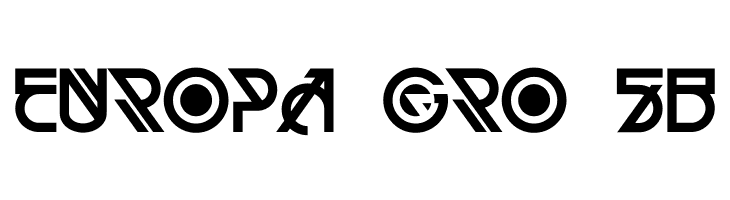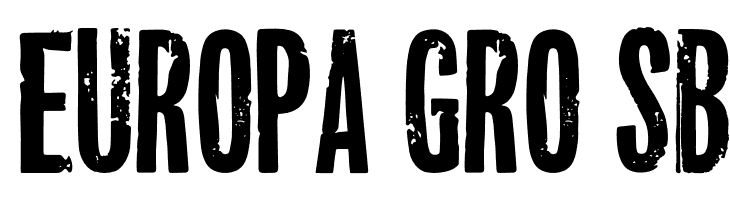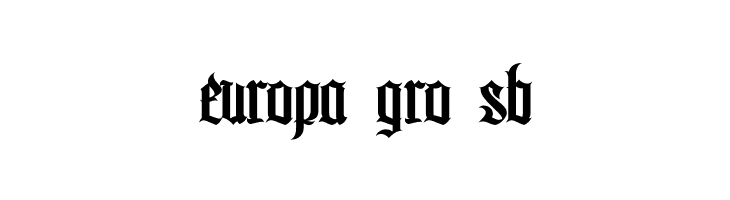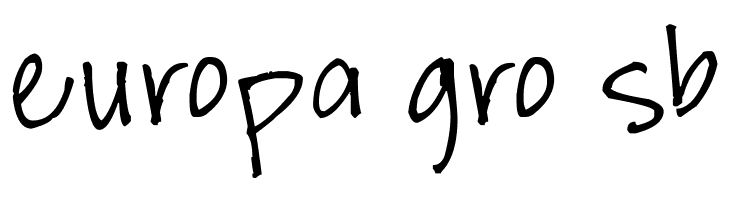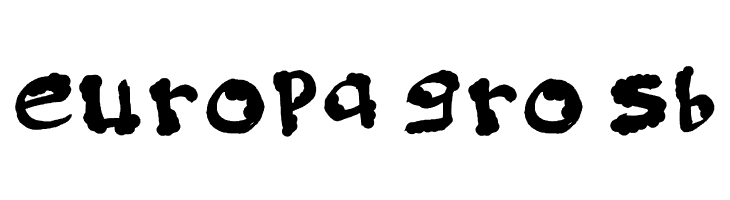
A casual, handwritten font with a playful and informal style.
A bold, hand-painted style font with a textured, artistic appearance.
A futuristic, geometric font with sharp angles and bold lines.
A bold, gothic Blackletter font with intricate, angular designs.
A bold blackletter font with sharp, angular lines and ornate detailing.